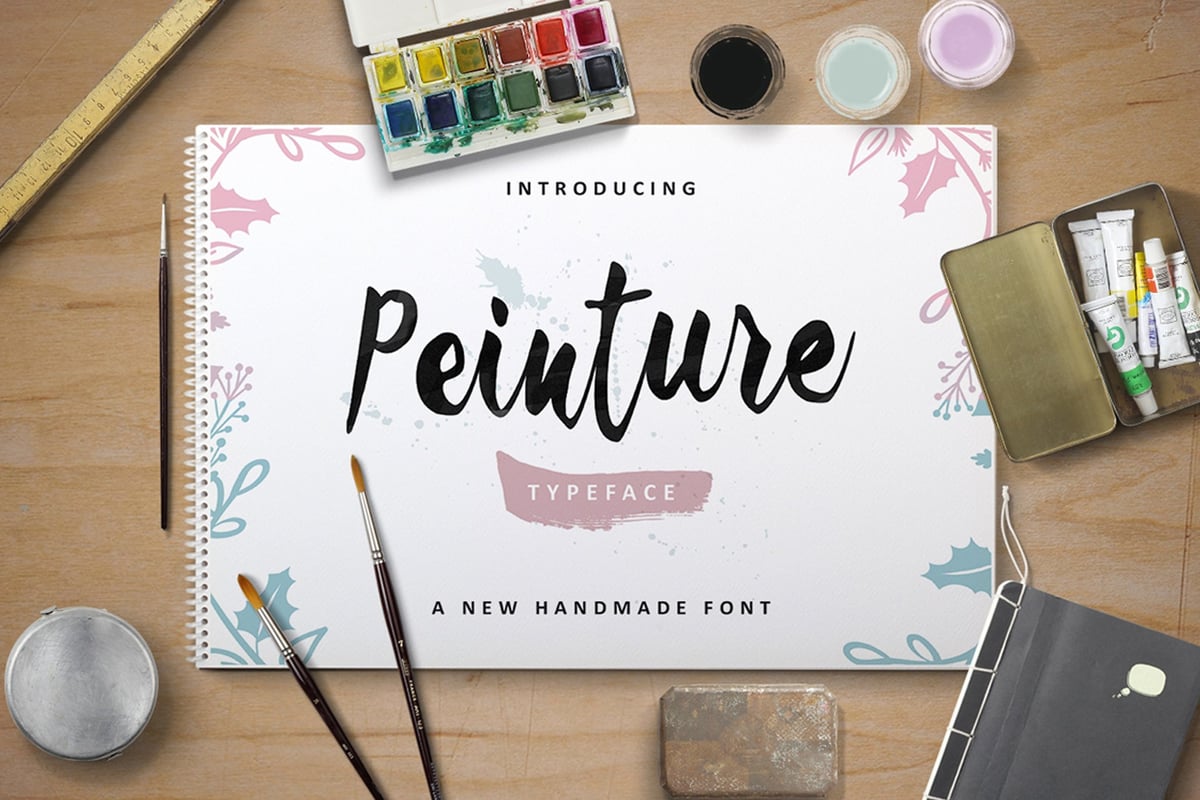
Peinture Typeface
Peinture is a bold, expressive handmade script typeface that brings a natural, personal touch to any design.
Crafted with an authentic brush-painted aesthetic, Peinture is perfectly suited for apparel branding, greeting cards, packaging, posters, and any project that calls for warmth and character. Its raw, hand-lettered energy makes it equally at home on a summer beach brand or an elegant wedding invitation.
With 253 glyphs and alternate characters, Peinture gives you the flexibility to mix and match letterforms for a truly custom look. OpenType features include:
- Stylistic Alternates
- Standard Ligatures
- Contextual Alternates
- Ornaments and Swashes